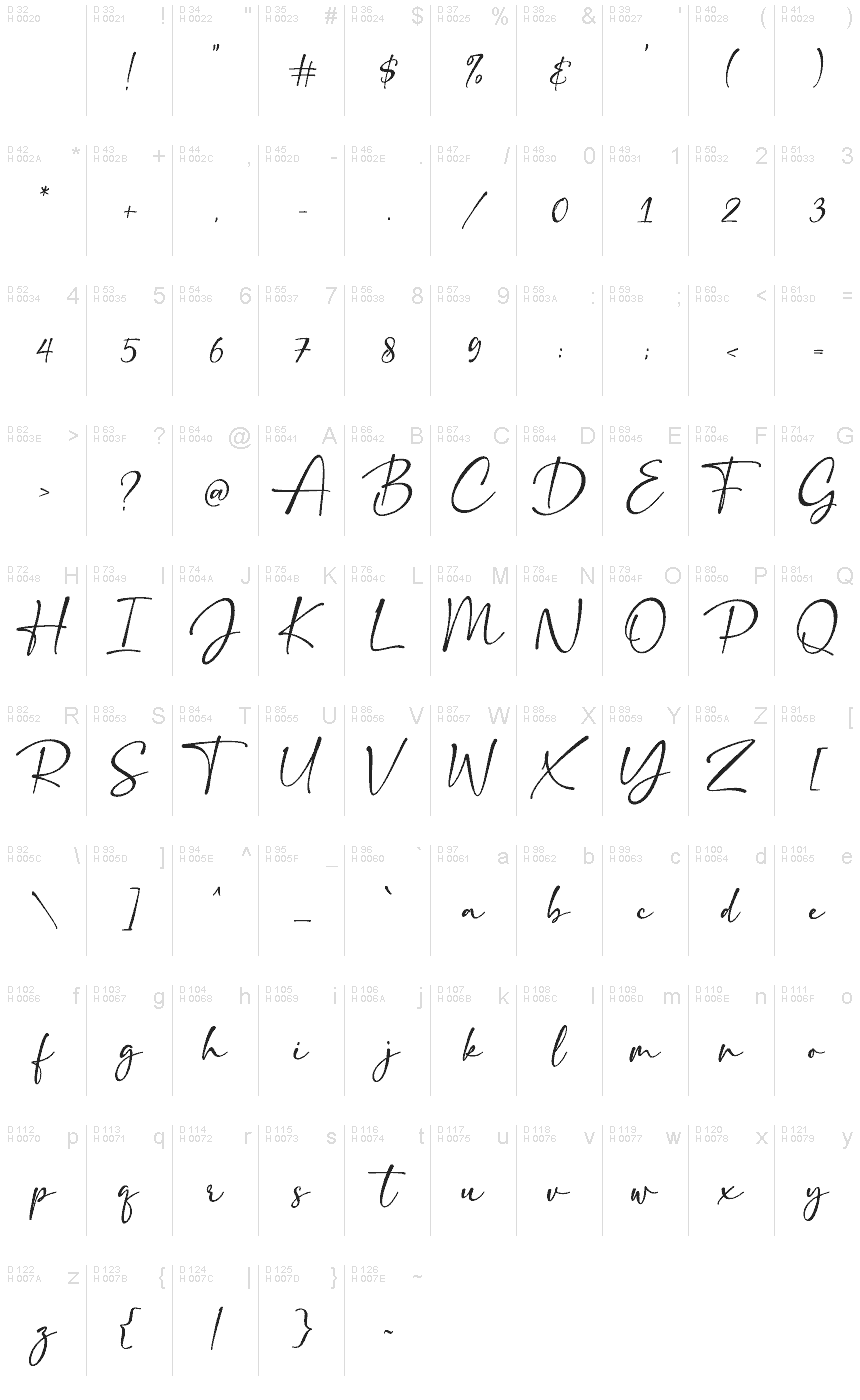
Dating Month
Dating Month font is a free handwritten font created by Sronstudio. The graceful and flowing nature of the letters creates a warm, inviting mood suited for event invitations or branding related to lifestyle and personal connections. Its elegance is also established with the soft curves that pair the romantic side of modern calligraphy with casual sophistication. So even if this expressive style can be compared to calligraphy, it’s much more effortless and natural.
Its style makes it applicable to different projects including greeting cards, thank you cards, invitations, and wedding designs as well as packaging, labels for defuser bottles or candles, business cards that present your brand or organization in a new light, logos and trademarks especially those for the beauty industry (parlors, makeup brands), boutiques display signs and ads.